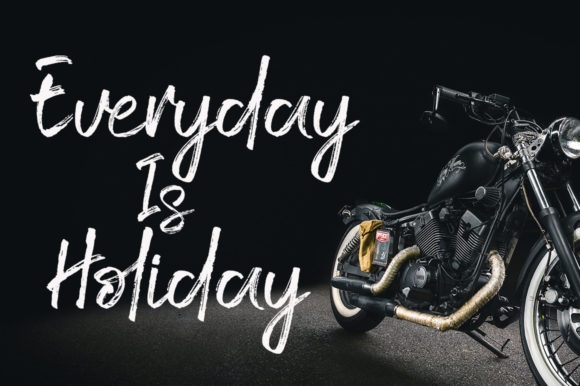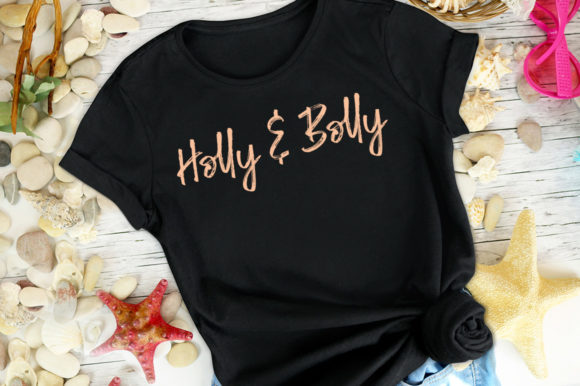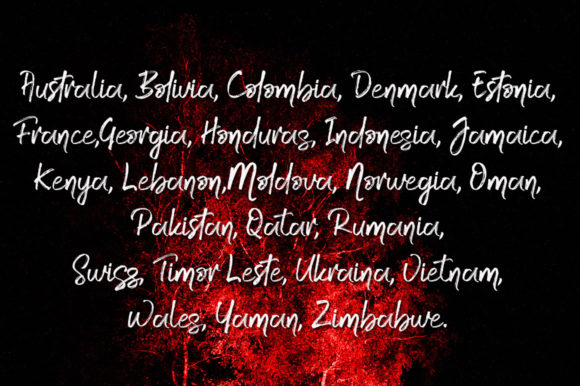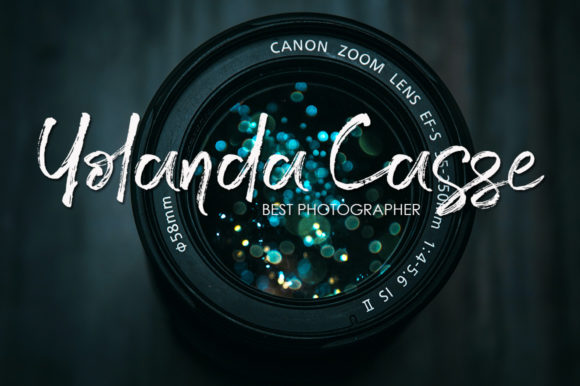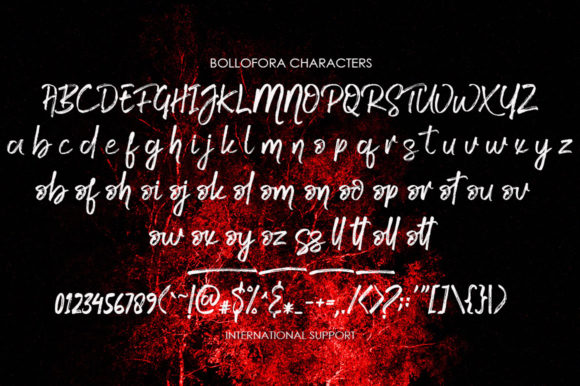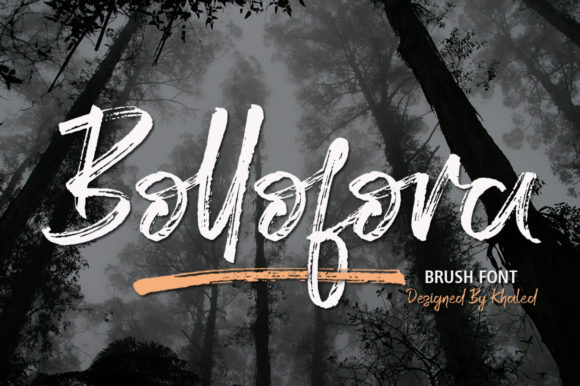
Bollofora Font: Elevate Your Designs with a Cool and Brushed Handwritten Style
Are you tired of using the same old fonts in your designs? Look no further than the Bollofora Font, a cool and brushed handwritten font that will add a unique touch to your projects. With its beautiful, one-of-a-kind lettering style, Bollofora is perfect for designers and crafters looking to make their designs stand out from the crowd.
What Makes Bollofora Font So Special?
Bollofora Font is a true gem in the world of typography. Every letter has a unique and beautiful touch, which will make your design come alive! The font’s brushed handwritten style gives it a personal and organic feel, making it perfect for a wide range of design applications, from branding and advertising to packaging and digital media.
One of the standout features of Bollofora Font is its PUA (Private Use Area) encoding. This means that you can access all of the beautiful glyphs and swashes with ease, giving you even more creative freedom to experiment with different design elements. Whether you’re looking to add a touch of elegance or a dash of playfulness to your design, Bollofora Font has got you covered.
Key Features of Bollofora Font
- Cool and Brushed Handwritten Style: Bollofora Font features a unique and beautiful handwritten style that’s perfect for adding a personal touch to your designs.
- PUA Encoded: With PUA encoding, you can access all of the font’s glyphs and swashes with ease, giving you maximum creative flexibility.
- Unique Lettering Style: Every letter in Bollofora Font has a one-of-a-kind design, ensuring that your text will stand out from the crowd.
- Perfect for Designers and Crafters: Whether you’re a professional designer or a crafty DIY enthusiast, Bollofora Font is the perfect choice for anyone looking to add a touch of personality to their designs.
To get the most out of Bollofora Font, be sure to experiment with different design elements, such as font sizes, colors, and textures. You can also combine Bollofora Font with other fonts and design elements to create a truly unique look.
Inspiration for Using Bollofora Font
Still not sure how to use Bollofora Font in your designs? Here are a few ideas to get you started:
- Branding and Logo Design: Use Bollofora Font to create a unique and memorable logo for your business or brand.
- Social Media Graphics: Add a touch of personality to your social media graphics with Bollofora Font.
- Packaging Design: Use Bollofora Font to create eye-catching packaging that stands out on store shelves.
- Digital Media: Add a touch of elegance or playfulness to your digital media, such as ebooks, presentations, or videos.
In conclusion, Bollofora Font is a cool and brushed handwritten font that’s perfect for designers and crafters looking to add a unique touch to their designs. With its beautiful, one-of-a-kind lettering style and PUA encoding, Bollofora Font is the perfect choice for anyone looking to elevate their designs to the next level.